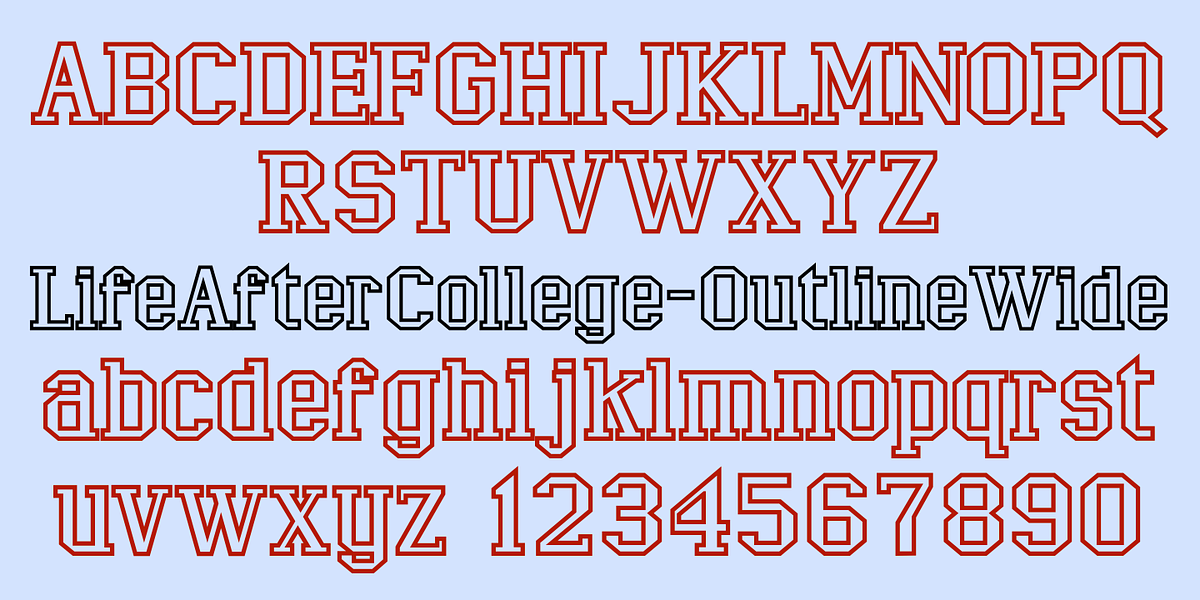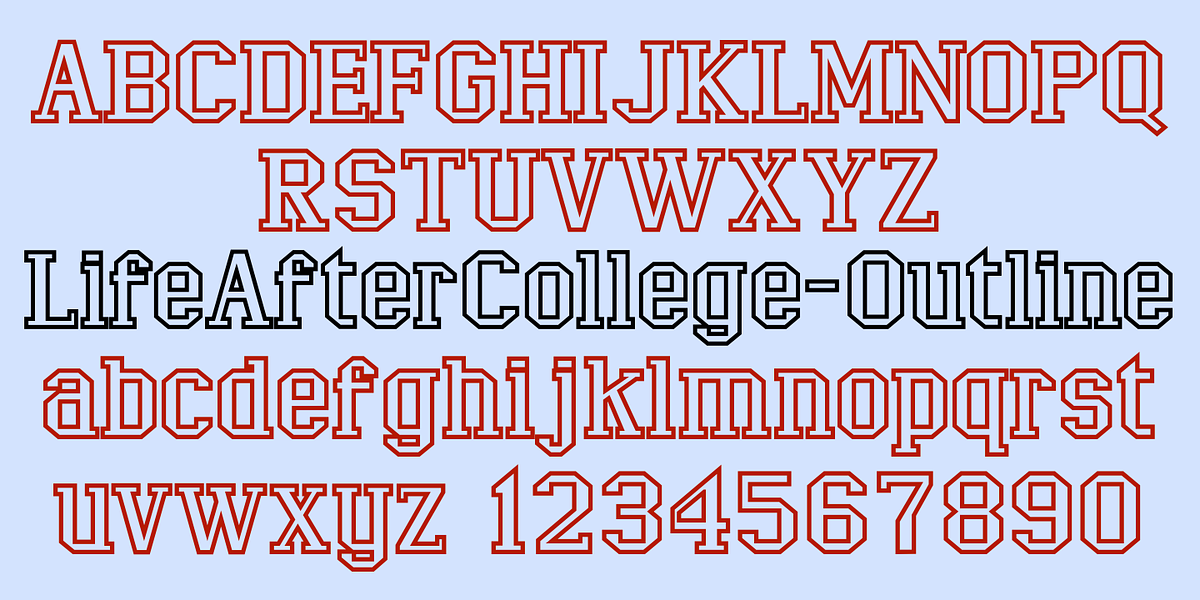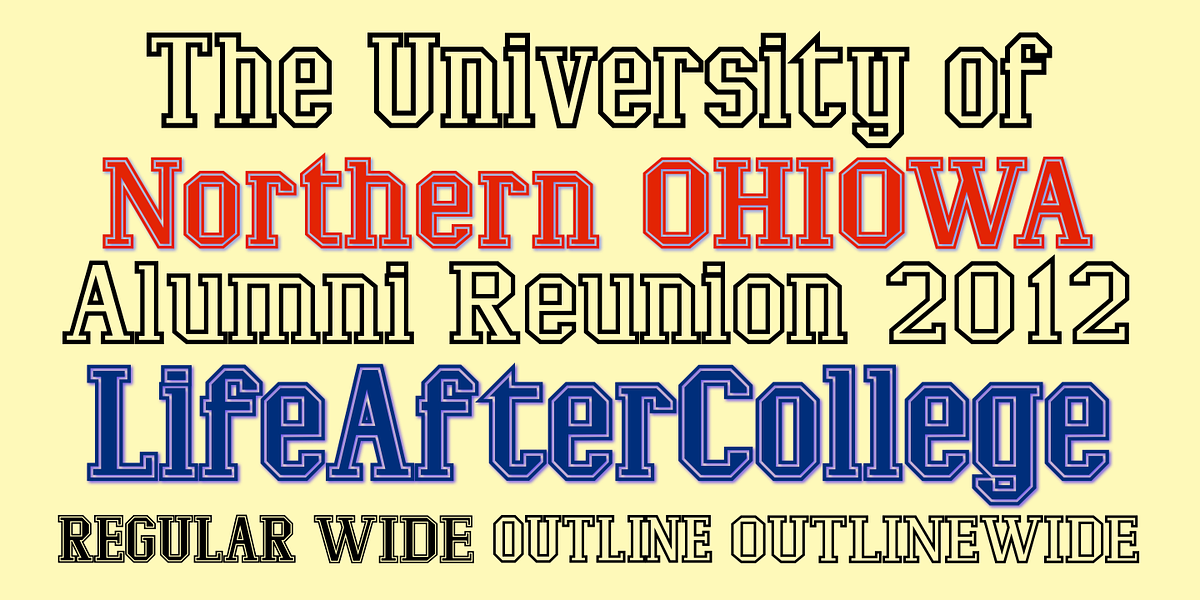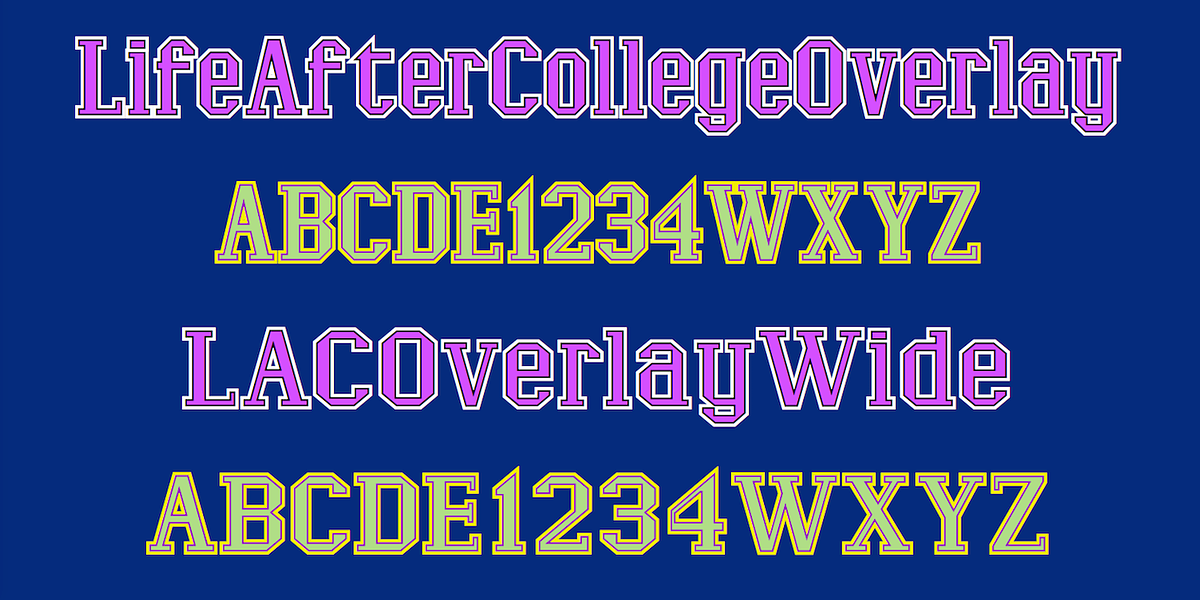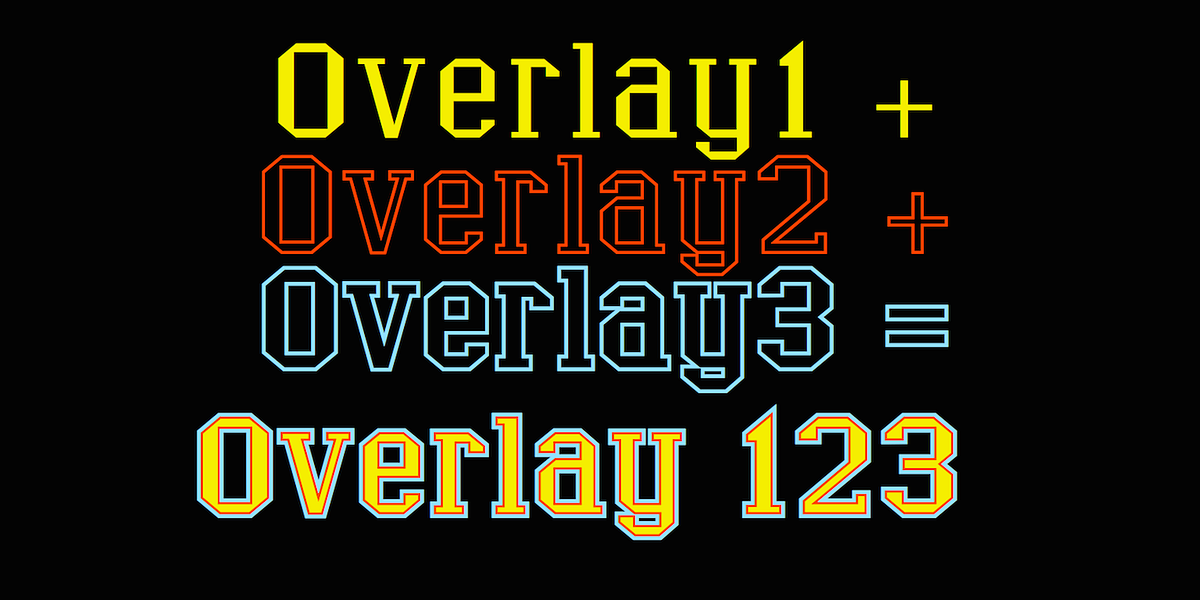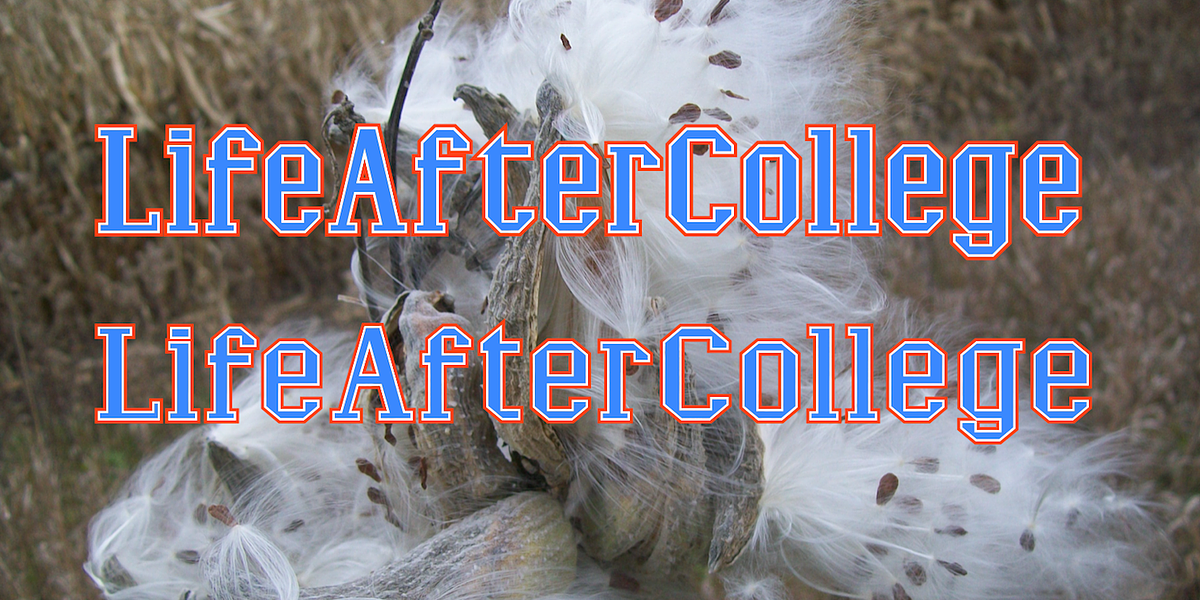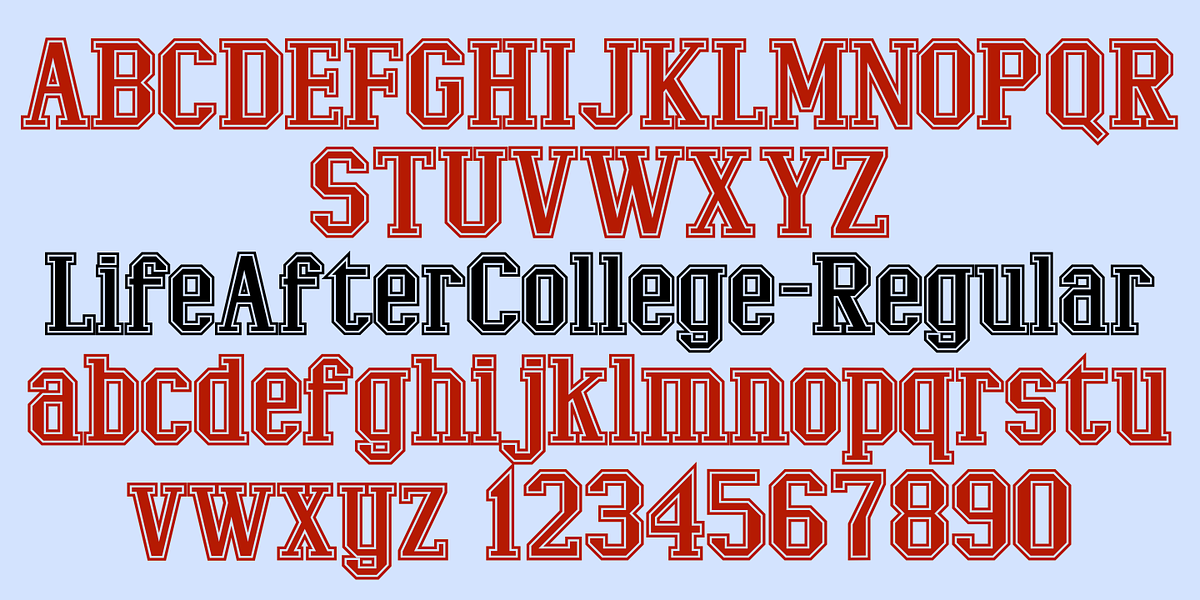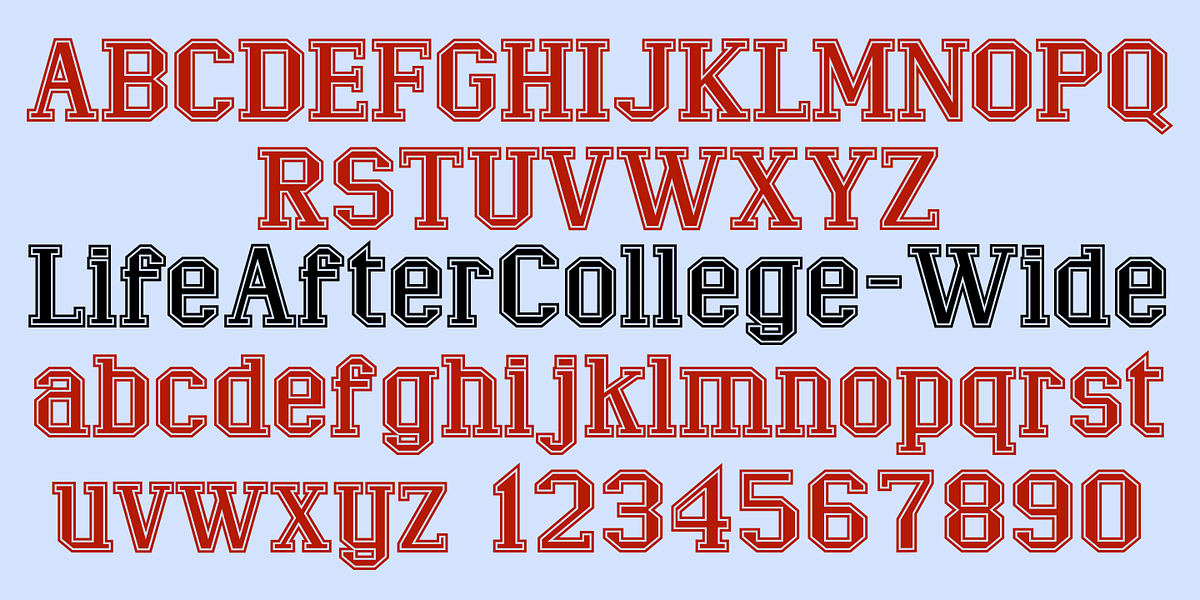
LifeAfterCollege
The LifeAfterCollege font family is a set of geometric slab serif fonts inspired by collegiate aesthetics. Two styles are offered: outlined with hollow insides and filled with solid insides. The outlined versions can be further broken down into three typefaces that allow for layering different colors. This unique feature enables designers to create embossed or bordered effects, adding depth and visual interest to designs.